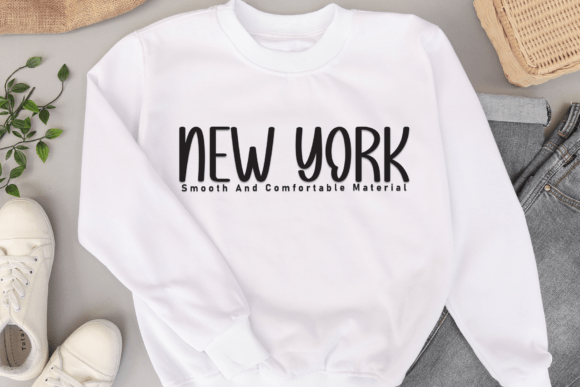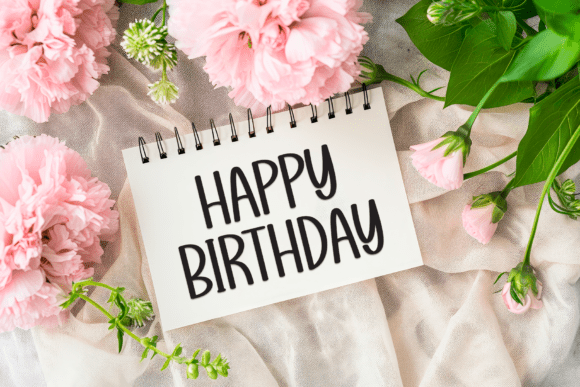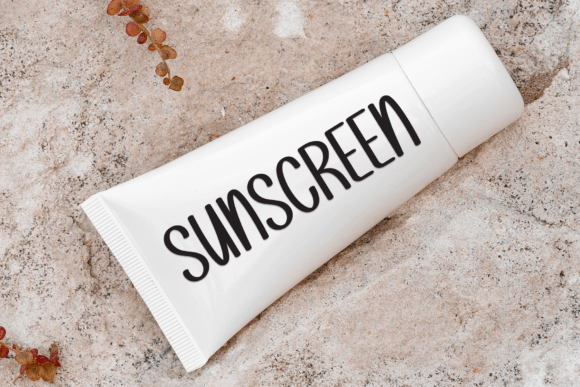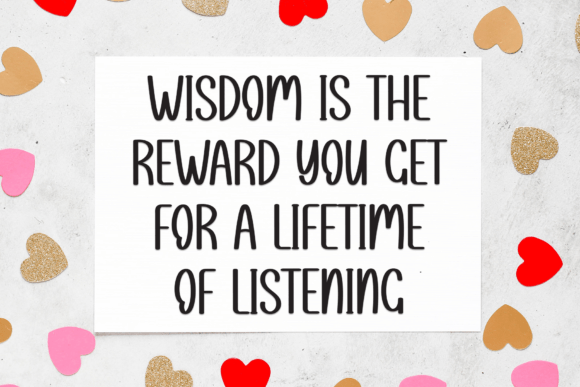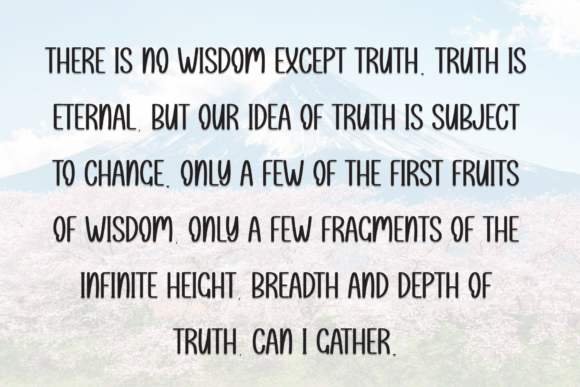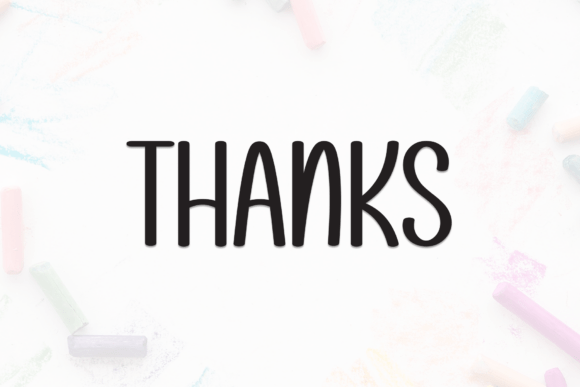
Savor the Captivating Allure of Chalk Color Font
Are you looking for a font that can add a touch of warmth and personality to your creative projects? Look no further than the enchanting Chalk Color font. This display font is designed to evoke a sense of comfort and invitation, making it perfect for wedding invitations, greeting cards, and other artistic ventures that require a sprinkle of joyful charm.
The Charm of Chalk Color Font
Chalk Color font is more than just a font – it’s a delightful artistic instrument that combines ingenious creativity and distinct allure. Its unique design is inspired by the classic look of chalkboard writing, but with a modern twist that makes it perfect for a wide range of creative projects. Whether you’re a designer, crafter, or DIY enthusiast, Chalk Color font is sure to leave an enduring impression on every creative masterpiece it adorns.
Wedding invitations and greeting cards are special occasions that deserve a font that’s just as special. Chalk Color font is perfectly designed to add a stunning charisma to these types of projects, giving them a warm and inviting feel that’s sure to delight. Imagine sending out wedding invitations that set the tone for a beautiful and joyous celebration, or greeting cards that make the recipient feel loved and appreciated. With Chalk Color font, you can create these types of special moments with ease.
Adding a Touch of Joyful Charm to Your Projects
Chalk Color font is all about adding a touch of joyful charm to your creative projects. Its playful and whimsical design makes it perfect for projects that require a bit of personality and flair. Whether you’re creating a poster, flyer, or social media graphic, Chalk Color font is sure to add a sprinkle of fun and creativity to your design. And with its easy-to-read design, you can use it for a wide range of projects, from titles and headings to body text and more.
Key Features of Chalk Color Font
- Enchanting display font: Chalk Color font is designed to grab attention and add a touch of magic to your creative projects.
- Comforting and inviting feel: Its unique design evokes a sense of warmth and personality, making it perfect for projects that require a personal touch.
- Perfect for wedding invitations and greeting cards: Add a stunning charisma to your special occasion stationery with Chalk Color font.
- Delightful artistic instrument: Combine ingenious creativity and distinct allure with Chalk Color font, and create creative masterpieces that leave a lasting impression.
Tips for Using Chalk Color Font
Here are a few tips for getting the most out of Chalk Color font:
- Use it for titles and headings: Chalk Color font is perfect for adding a touch of personality to your titles and headings.
- Experiment with colors: Try pairing Chalk Color font with different colors to create a unique and eye-catching design.
- Add a personal touch: Use Chalk Color font to add a personal touch to your projects, such as a hand-drawn feel or a sense of whimsy.
In conclusion, Chalk Color font is a unique and enchanting display font that’s perfect for adding a touch of warmth and personality to your creative projects. Its comforting and inviting feel makes it ideal for wedding invitations, greeting cards, and other special occasion stationery. With its delightful artistic instrument design, Chalk Color font is sure to leave an enduring impression on every creative masterpiece it adorns. So why not give it a try and see the magic for yourself?